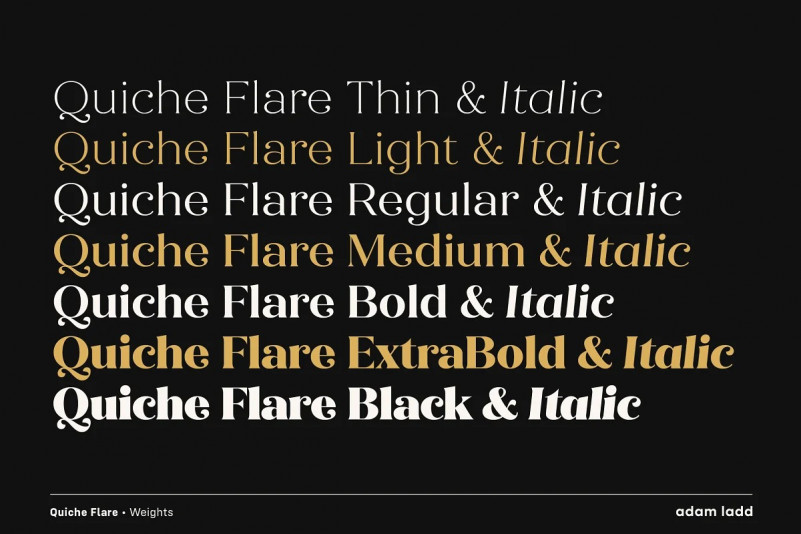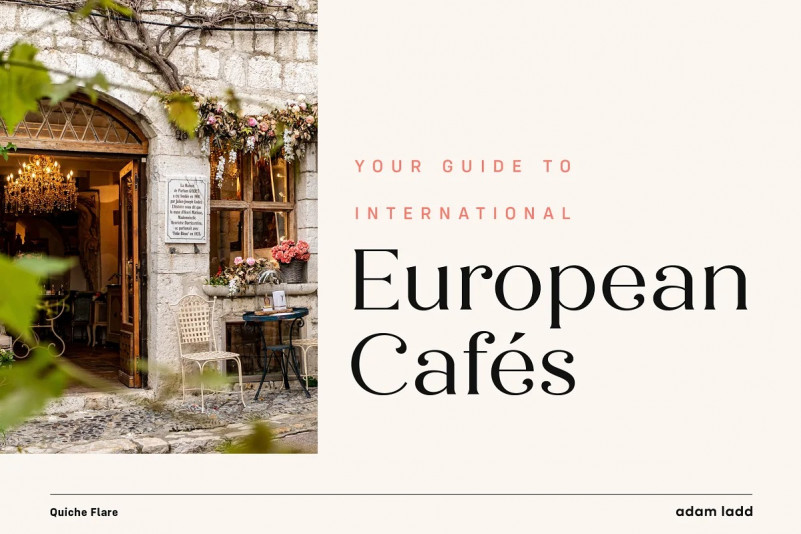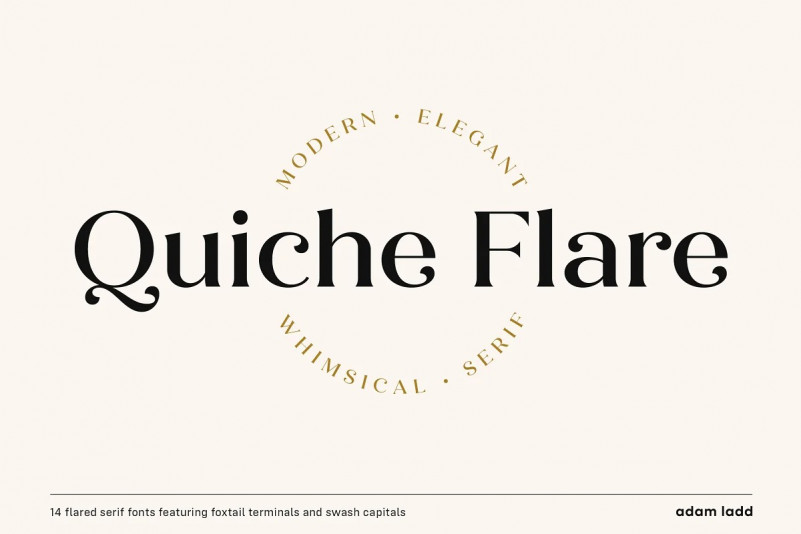
Quiche Flare Serif Font
Quiche Flare is a high-contrast, flared serif typeface featuring foxtail ball terminals, swash capitals, and geometric proportions. The 14 font family is made up of weights ranging from thin to black with matching italics, making them useful for a variety of display applications: print, web, branding, advertising, magazines, products, packaging, labels, invitations, stationery, fashion, etc.
The design exhibits both elegance and a touch of whimsy with the foxtail terminals. The flared serifs add more interest, beauty, and movement to the characters, while the large x-height helps it appear modern and bold.